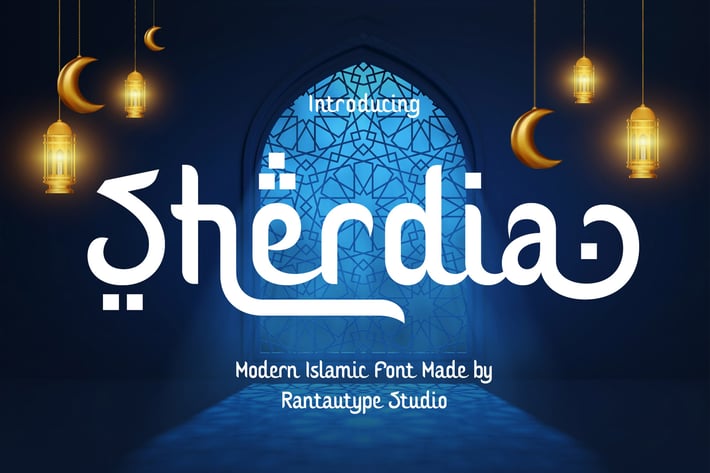
Sherdia Modern Islamic Font
Sherdia is modern islamic font with beautiful arabic style. Sherdia is a perfect choice for any creative endeavor, creating, modern, chic, lifestyle design such as logotype, title, cover, branding, invitations, wedding designs, display and magazine, social media posts, advertisements, printed quotes, product packaging, corporate brand, product designs, labels, photography, watermarks, special events and any other project with Islamic touch.